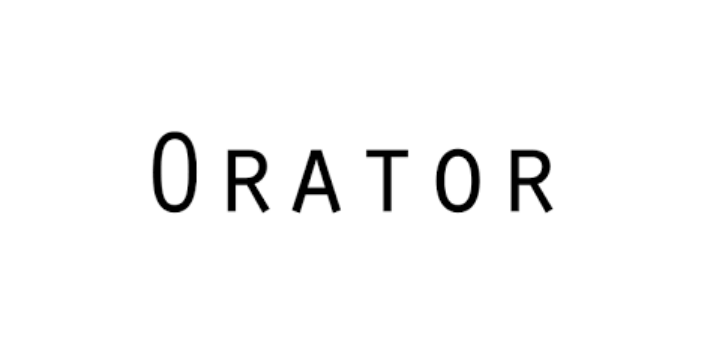
Orator Std Font Family is a modern and superb sans serif typeface family that is known as Orator Std font. It is a very high-quality typeface designed in the year 2012 by John Schepper and published through Adobe Fonts.